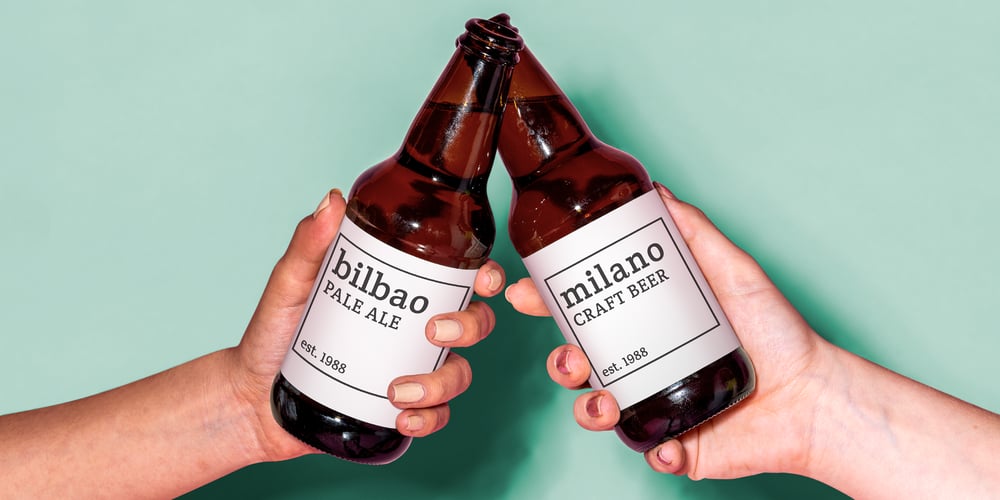
Crete Font Family was designed by Veronika Burian and published by TypeTogether. Crete contains 6 styles and family package options. A typeface originally inspired by a wall lettering in a small chapel on Crete, Greece. Despite its experimental character it works nicely in a text environment. Crete is perfect for display use where a feminine and elegant touch is desired. The unusual serifs and terminals add to the graceful appearance in the Thin and provide a more robust feel in the Thick. Both weights are metrically interchangeable, so text will not reflow when mixed. The accompanying Italics have several different lettershapes and therefore have, in some cases, their own widths. However, they sit comfortably next to the uprights. The style names refer to the change in serif weight instead of increasing vertical stem widths. Crete features our Basic Extended character set including four sets of numerals, ligatures. fractions, superior/inferior numerals and language support for over 40 languages that use the Latin script. Crete was selected as winner of the Granshan competition 2008 in the display type category.